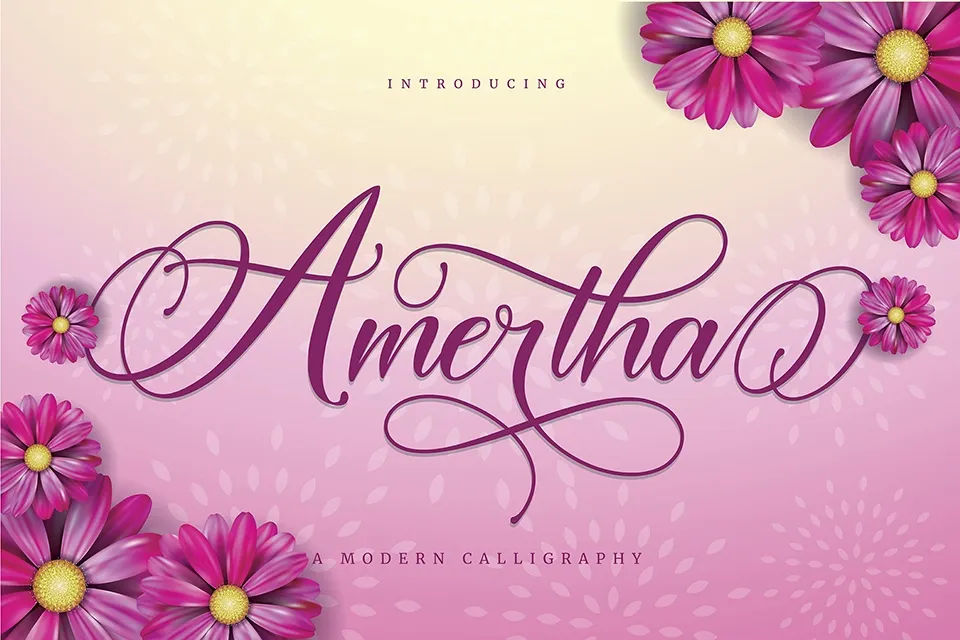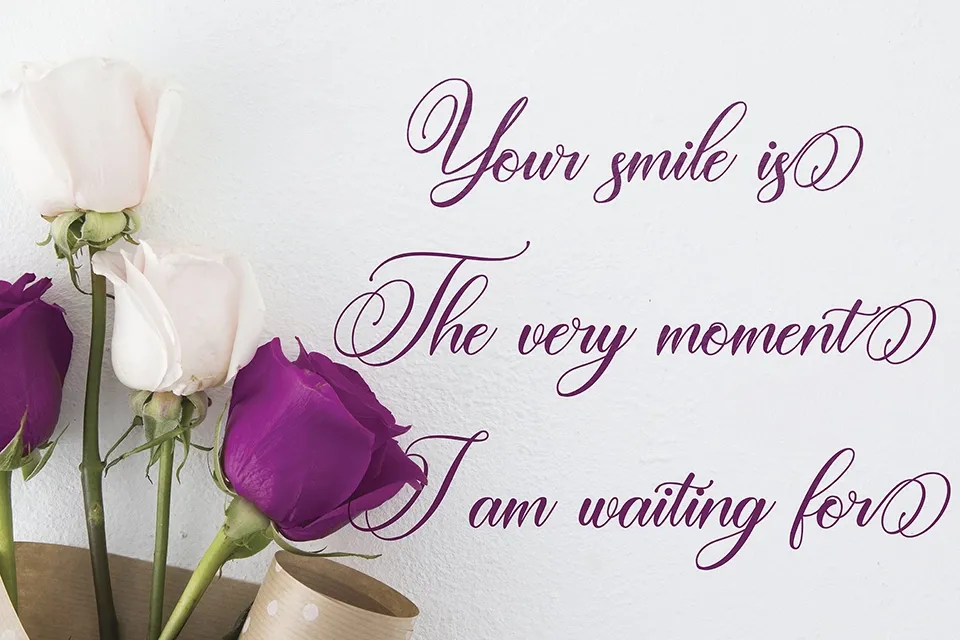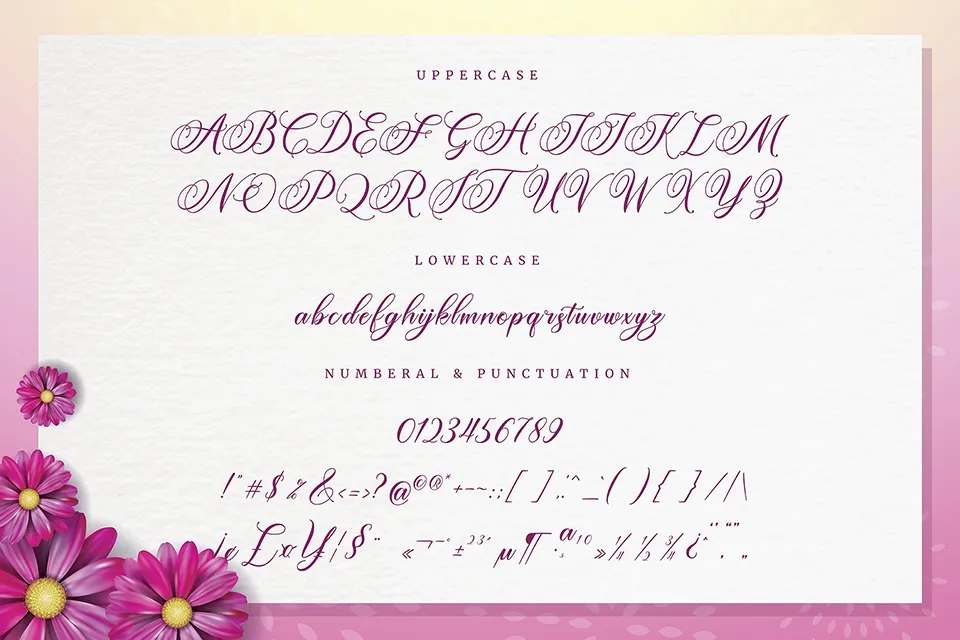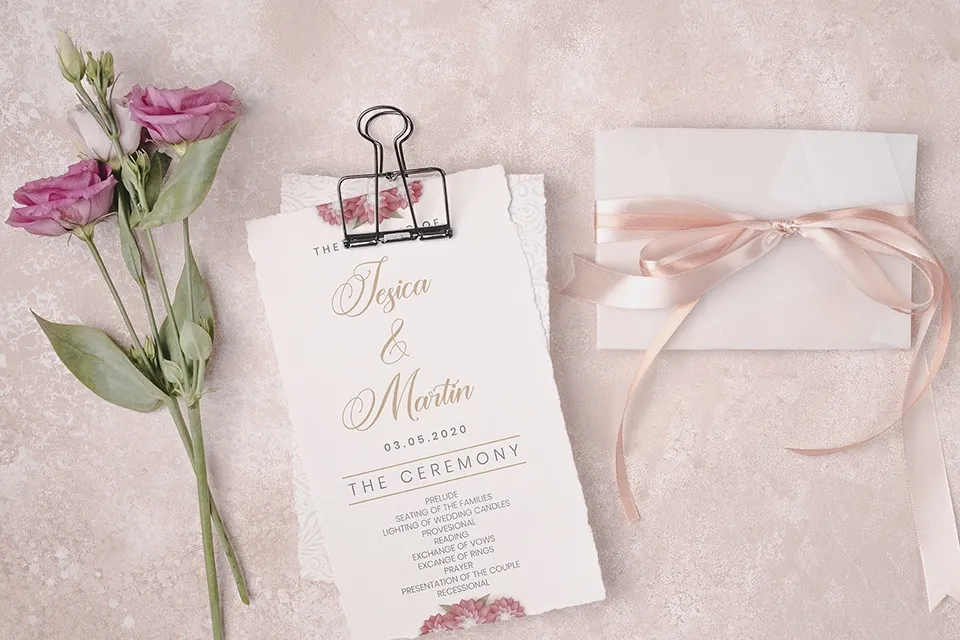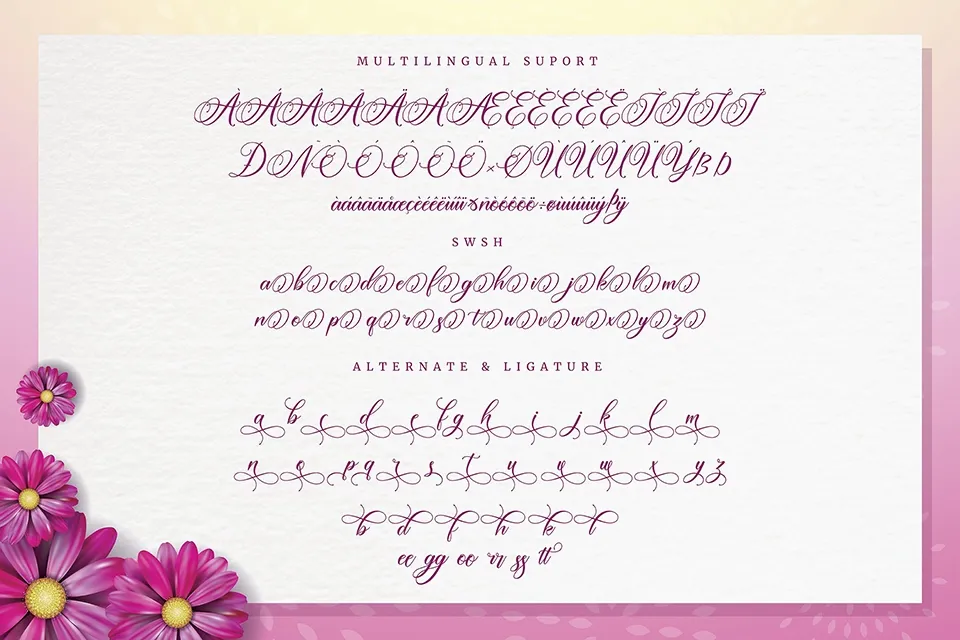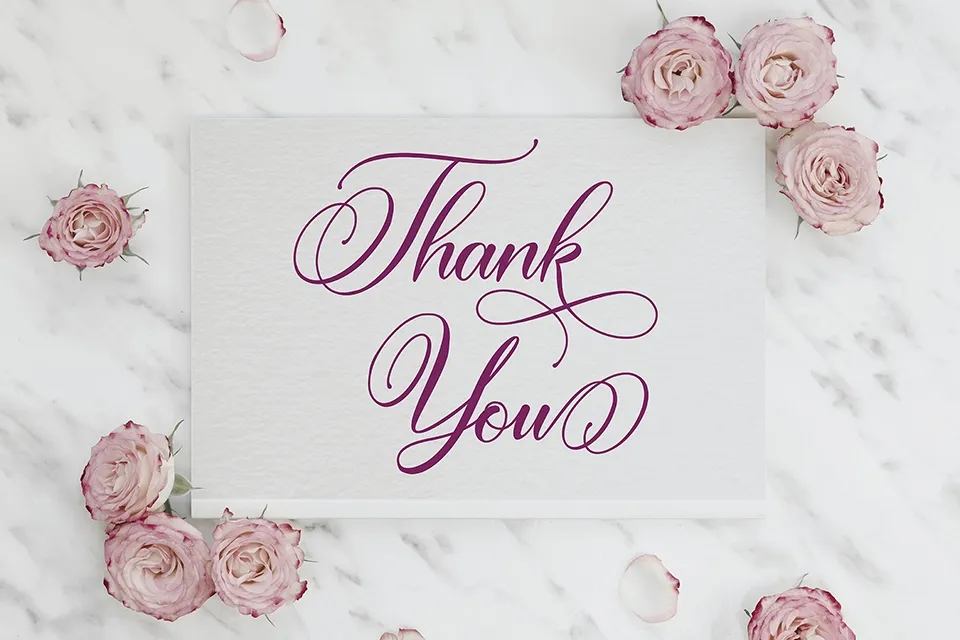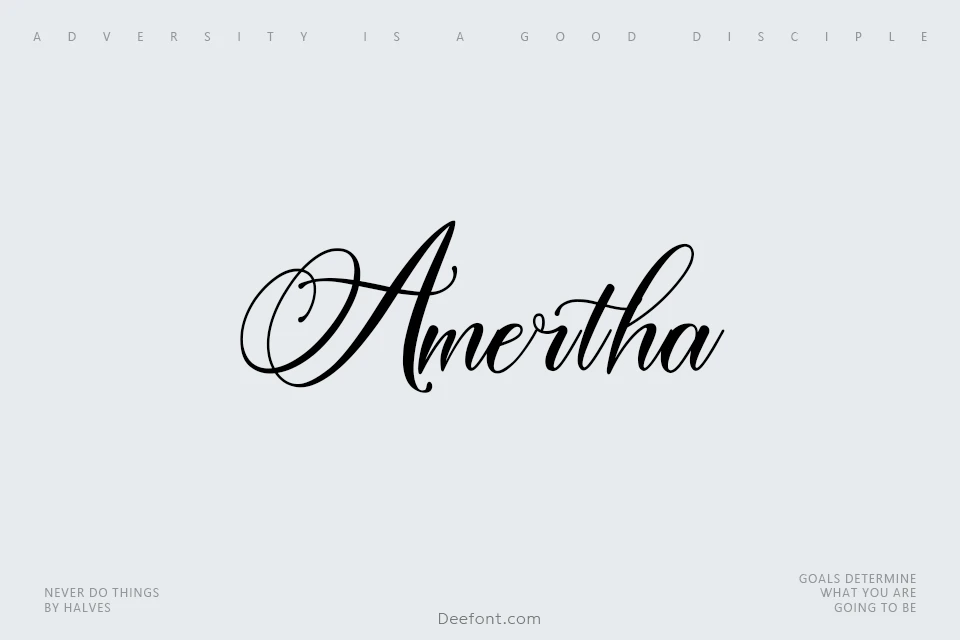
Amertha Calligraphy Font
Amertha Calligraphy Font is a stunning modern script typeface that radiates elegance and sophistication. With its graceful curves, intricate swashes, and flowing letterforms, Amertha is the perfect choice for creating luxurious designs. Ideal for wedding invitations, branding, logos, and decorative projects, this font adds a touch of romance and charm to any creation. Its versatile style ensures it works beautifully for both formal and creative applications. Amertha Calligraphy Font captures the essence of modern calligraphy with its delicate balance of beauty and readability, making it an exceptional addition to your design toolkit. Let Amertha bring your ideas to life!